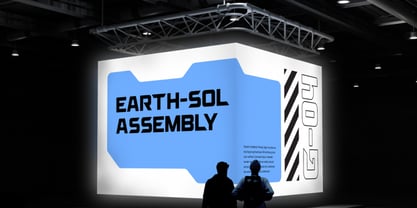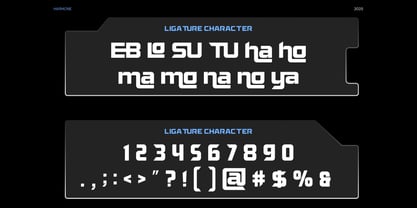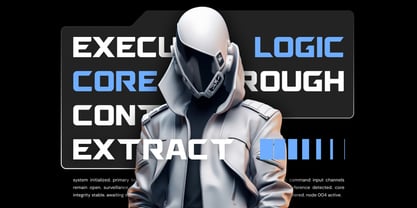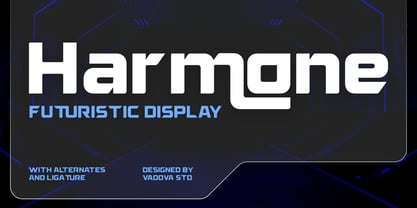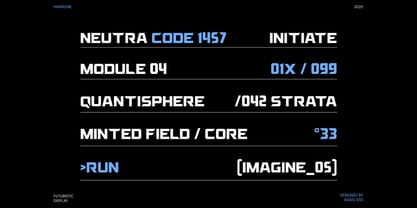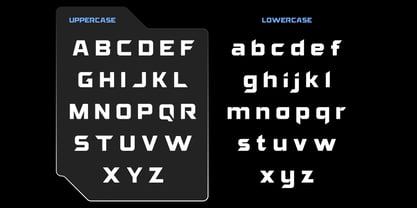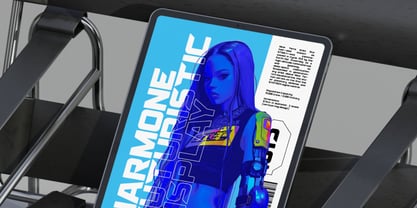
Harmone
by Rasio Studio
The Harmone Font Family was designed by Fajar Indra and published by Rasio Studio. Harmone contains 1 styles. More about this family
The Harmone Futuristic Display Font is a bold, geometric typeface built for modern and sci-fi themed designs. Its sharp angles, wide spacing, and sleek mechanical forms reflect innovation and technology — perfect for gaming logos, digital interfaces, movie titles, and tech branding that demand a futuristic impact. With features like uppercase and lowercase letters, numerals, punctuation, alternates and ligatures, it ensures precision and versatility across all creative uses. Whether for esports identities, cyberpunk posters, or product packaging, Harmone Display Font delivers a cutting-edge aesthetic with strong, dynamic energy.
Designers: Fajar Indra
Current Foundry: Rasio Studio